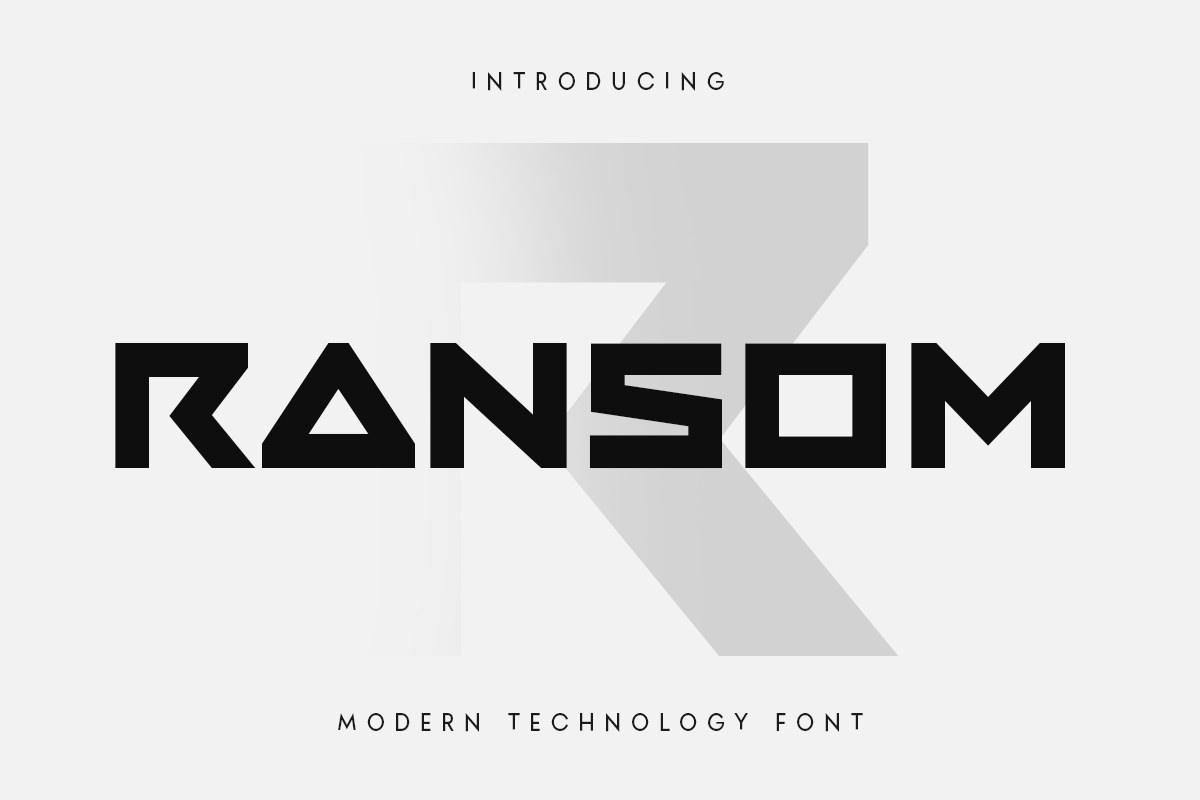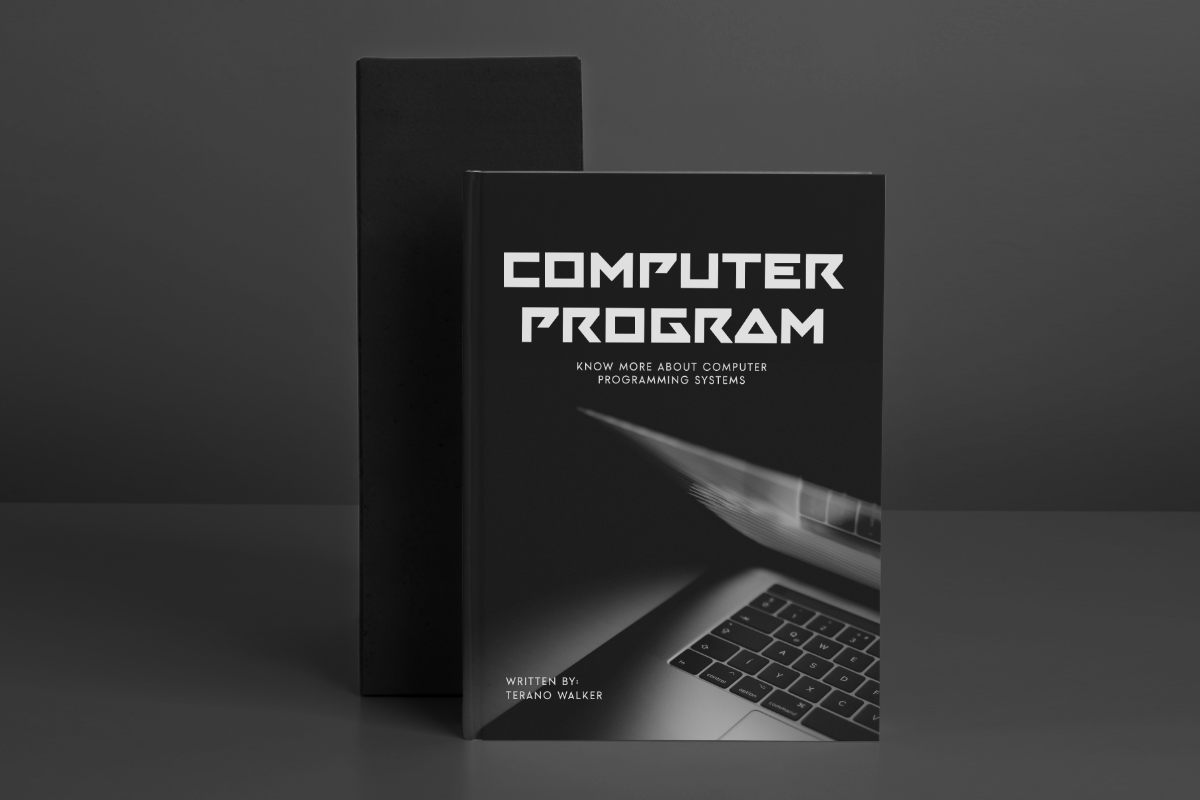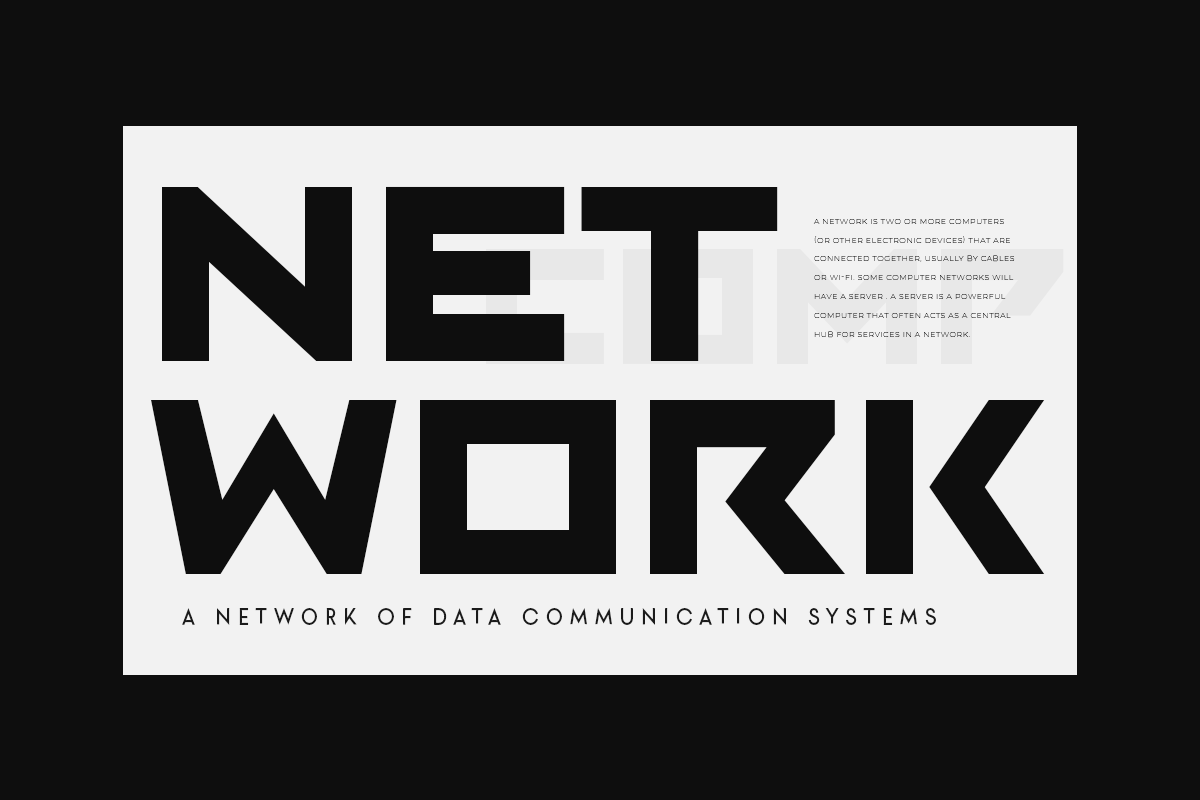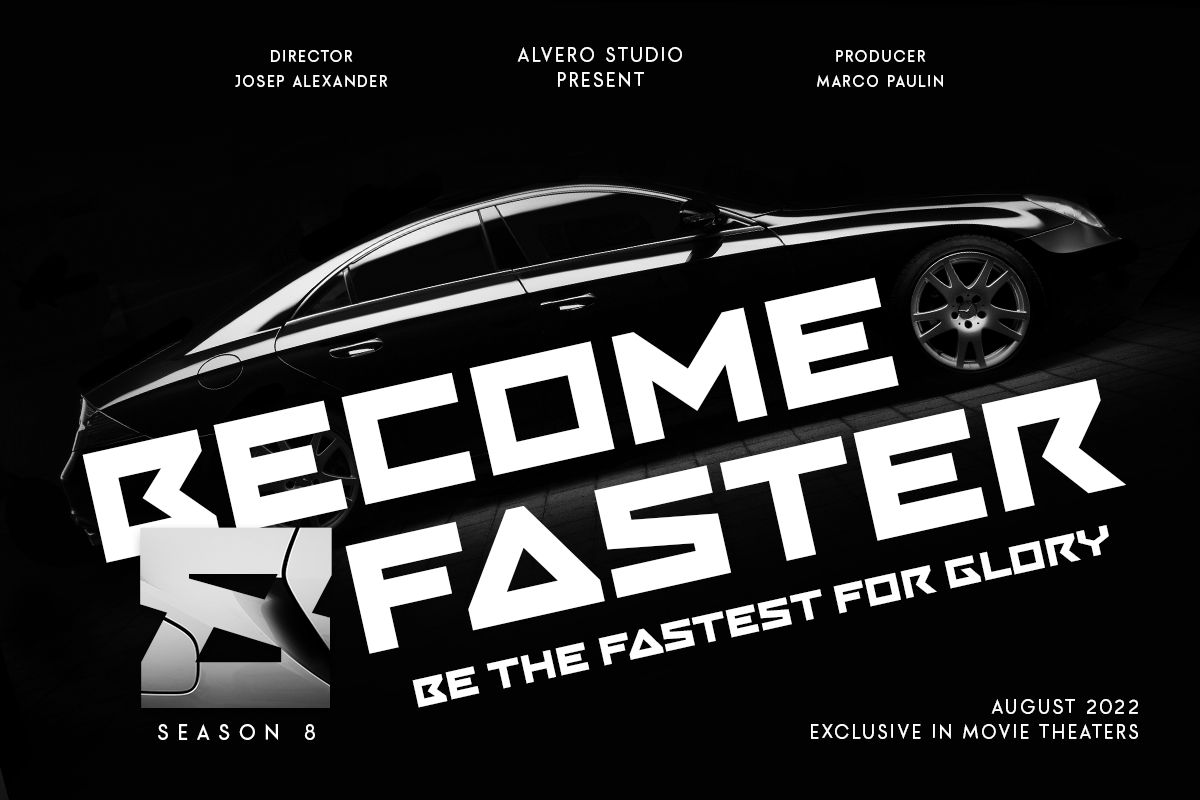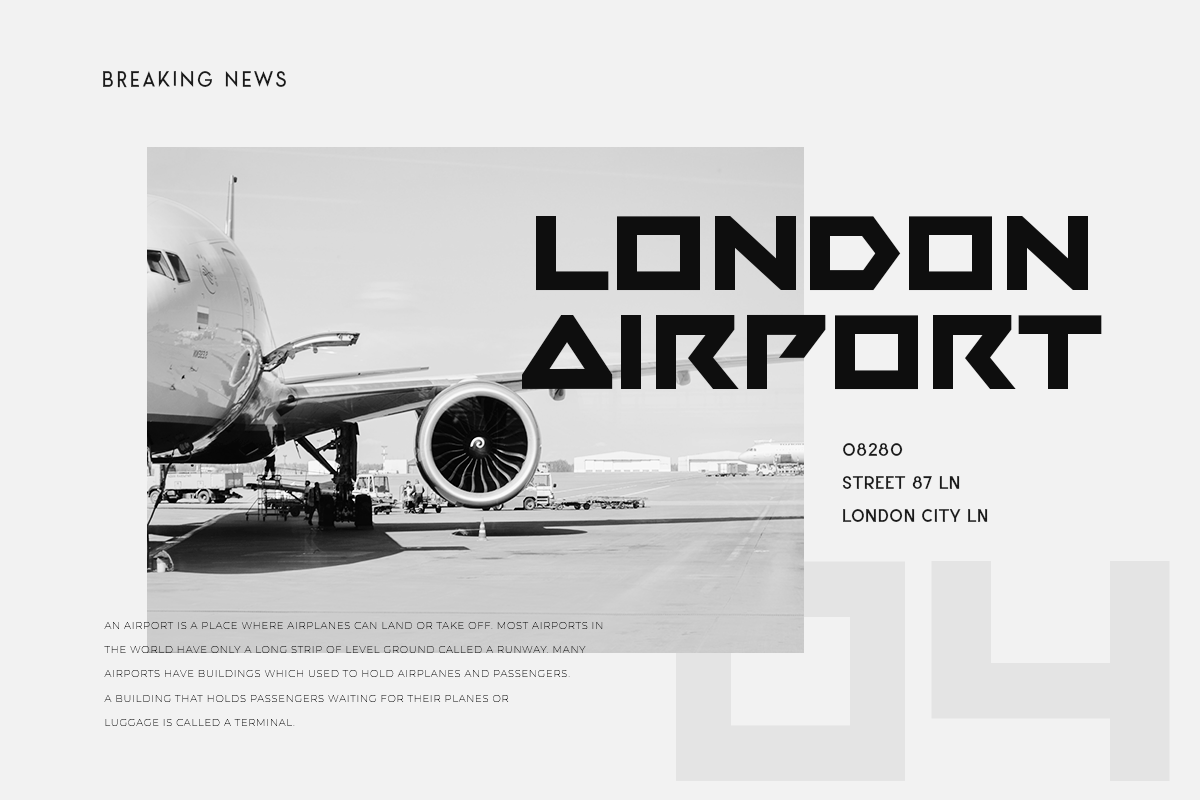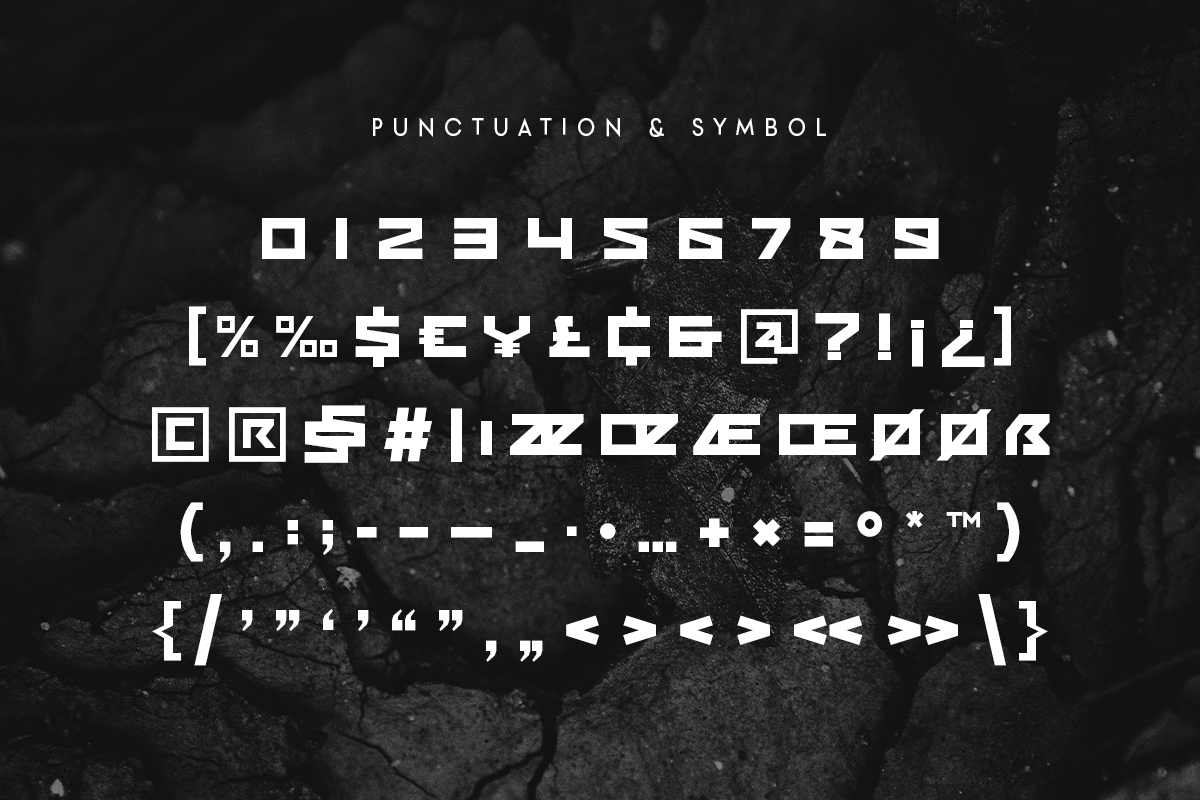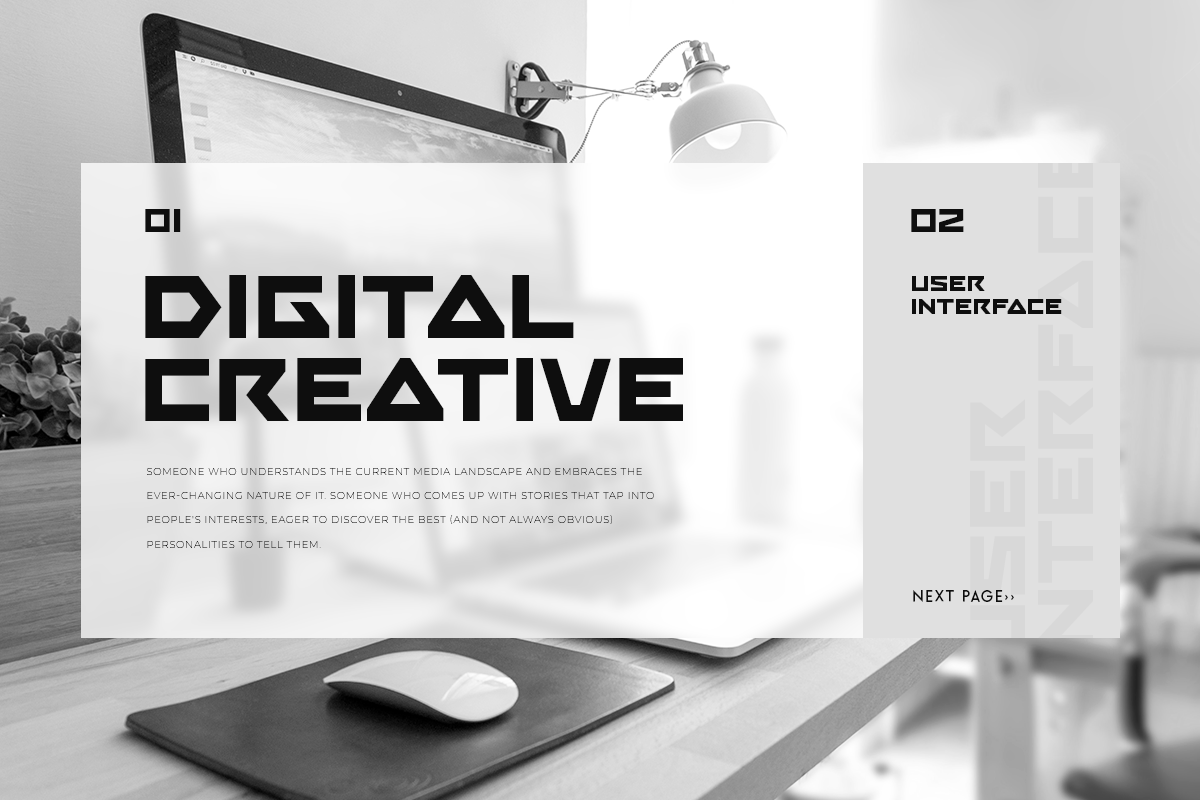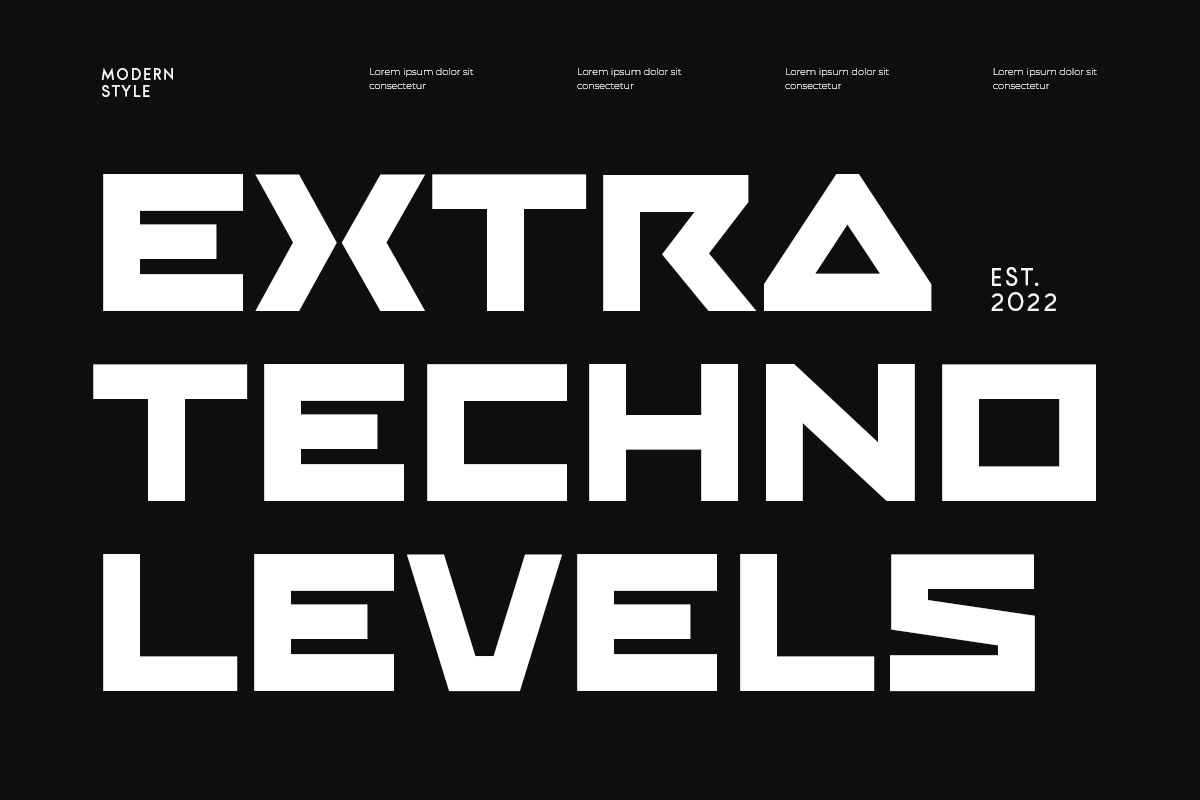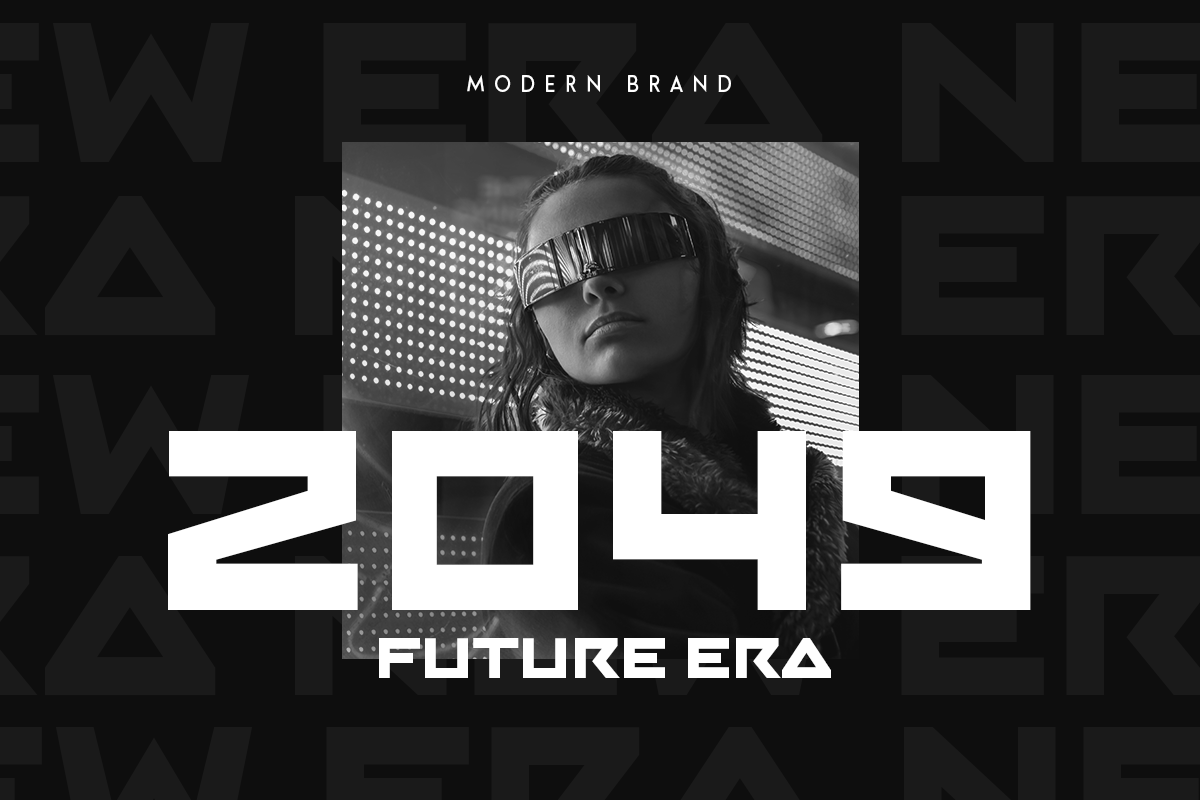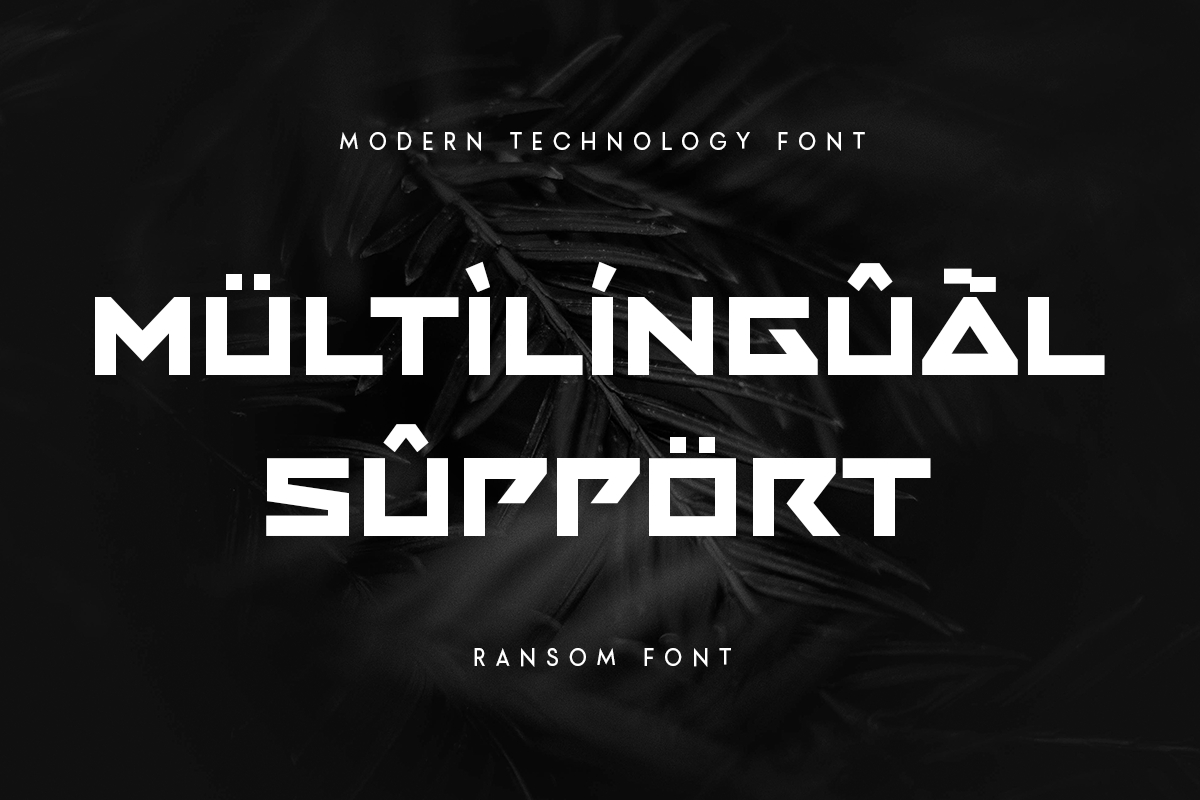
Ransom – Modern Technology Font
Ransom is a Modern Technology font that created special for Technology, Sci-fi, modern and more stand out typography needs with futuristic style, with modern styles that make your design more memorable. It’s so perfect to add your style better for headline overview for future, technology, actions, and technology theme. And specially for this font, we crafted for bold action style and modern feels so enjoy to create any project that will show your main idea out.
- Ransom characters prepared to get creative on Technology
- Ready with All Uppercase characters